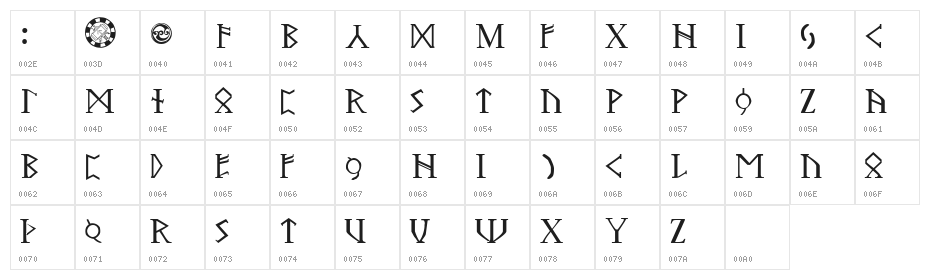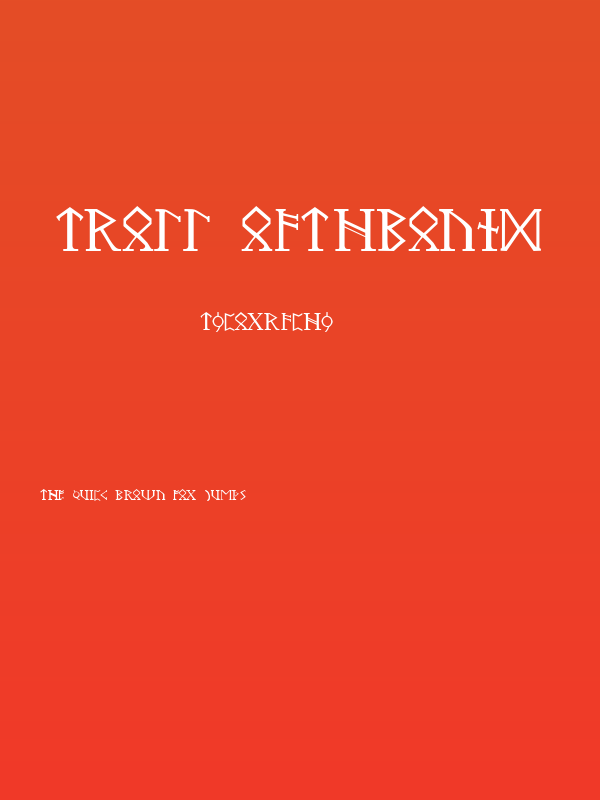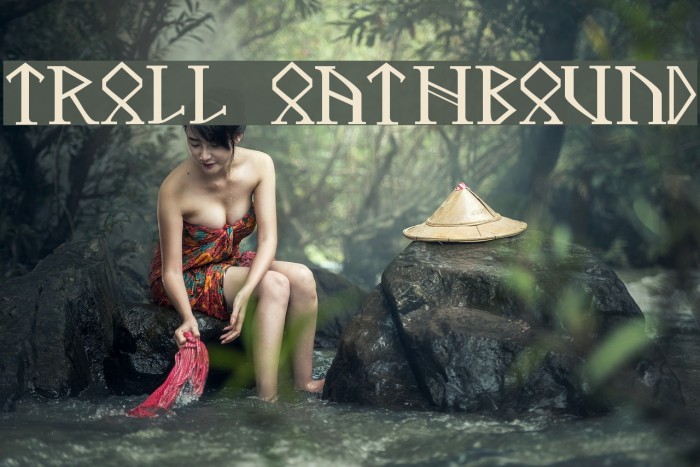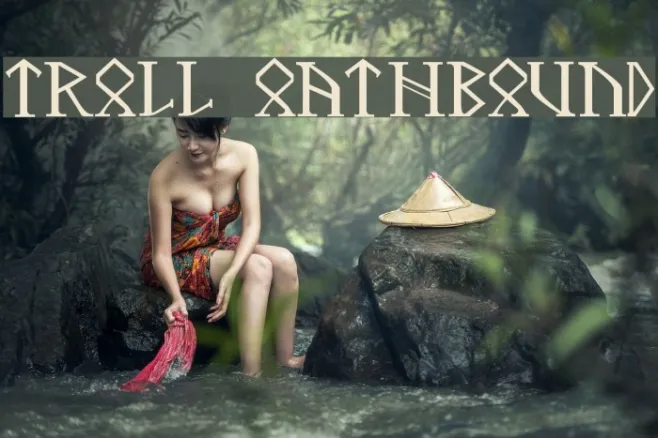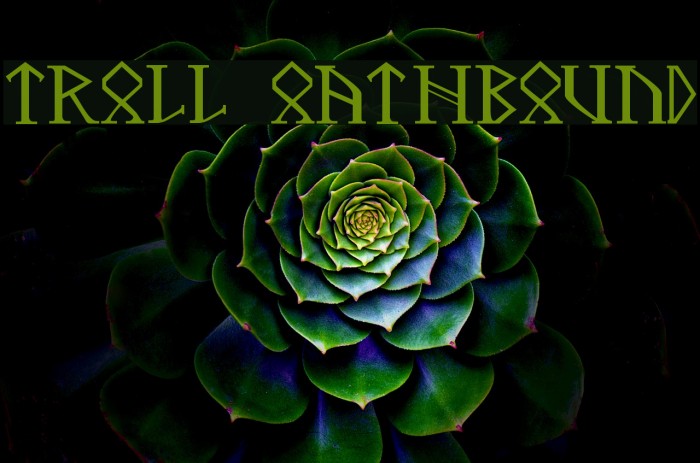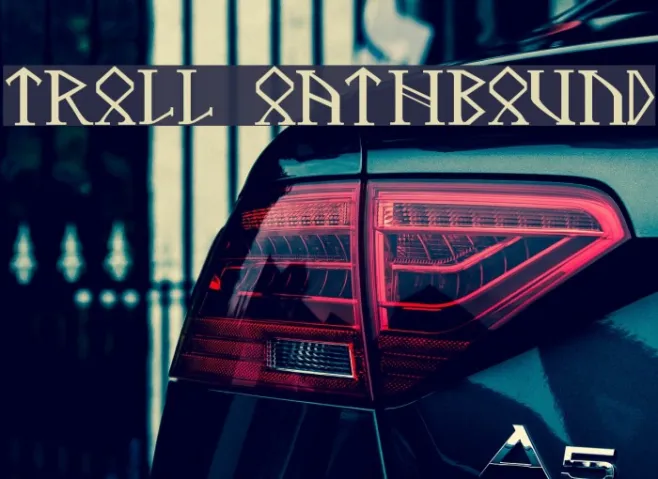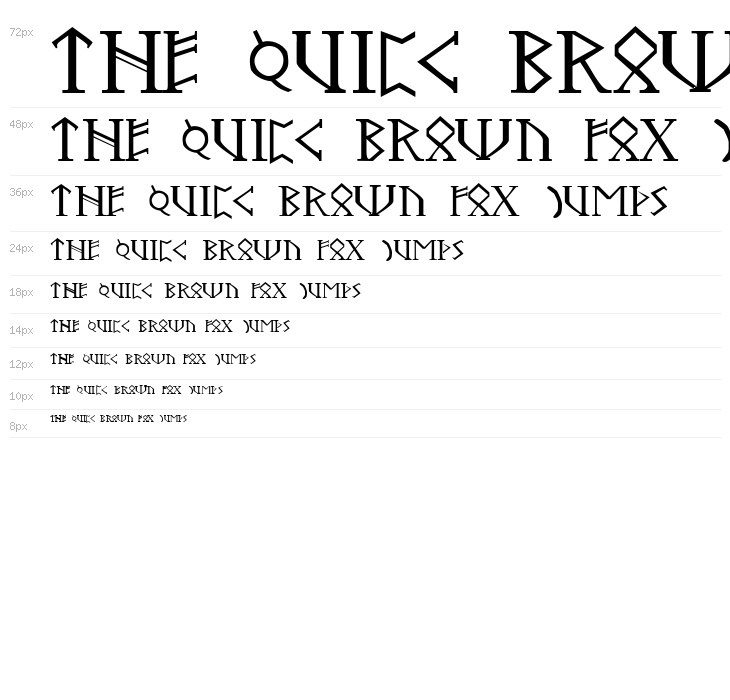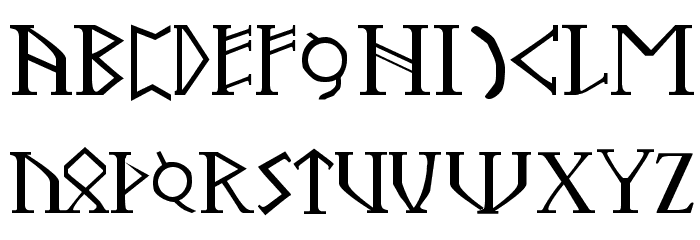
Troll Oathbound Font
Troll Oathbound Description
This font features a unique, angular design reminiscent of ancient runes or fantasy scripts. The characters are bold and geometric, with sharp edges and a distinct medieval flair. The uppercase letters are particularly striking, with intricate details and a sense of symmetry. The lowercase letters maintain the same angular style, providing a cohesive look across the typeface. The numbers and special characters follow suit, ensuring consistency. This font's style evokes a sense of mystery and antiquity, making it ideal for projects that require a touch of fantasy or historical ambiance.
TROLL-OATHBOUND UPPERCASE
TROLL-OATHBOUND LOWERCASE
TROLL-OATHBOUND OTHER CHARS
| Overall Style | Medieval, Fantasy |
| Use Case | Headlines, Logos, Themed Designs |
| Proposed Projects | Ideal for fantasy-themed projects, game design, book covers, or any creative work requiring a historical or mystical touch. |